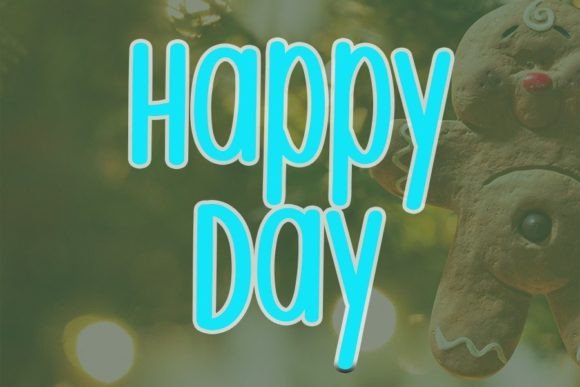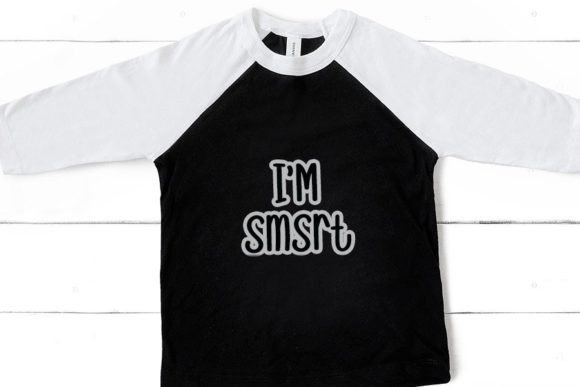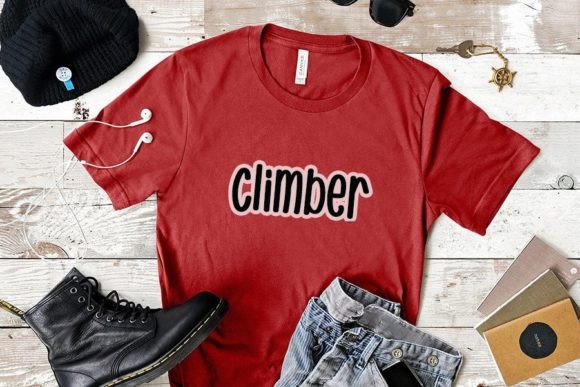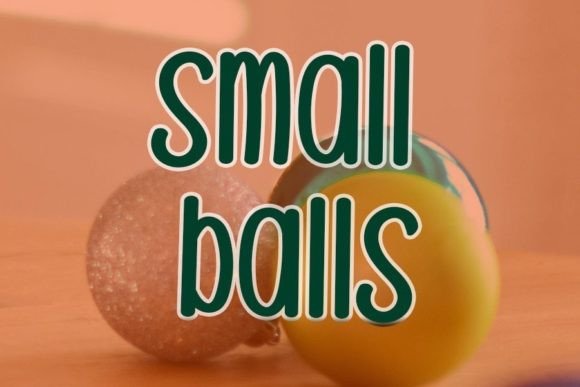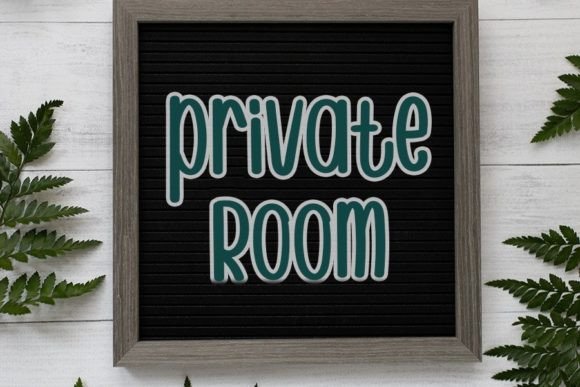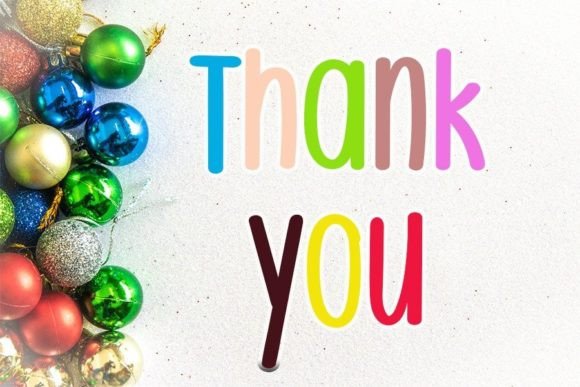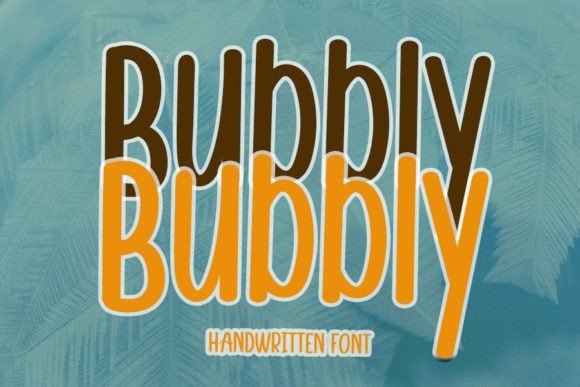
Bubbly Font: Add a Playful Touch to Your Designs
Are you looking for a font that can add a playful and fun touch to your designs? Look no further than Bubbly Font! This delightful handwritten font is perfect for creating wedding invitations, cards, and other designs that require a friendly and personalized feel.
What is Bubbly Font?
Bubbly Font is a carefully crafted handwritten font that exudes a sense of joy and playfulness. Its dainty and delicate strokes make it an ideal choice for designers who want to add a touch of whimsy to their work. Whether you’re creating wedding invitations, greeting cards, or social media graphics, Bubbly Font is sure to make your designs stand out.
Characteristics of Bubbly Font
So, what makes Bubbly Font so special? Here are some of its key characteristics:
• Playful and fun: Bubbly Font is designed to bring a smile to your face. Its playful and fun strokes make it perfect for designs that require a lighthearted touch.
• Dainty and joyful: The font’s dainty strokes and joyful vibe make it an excellent choice for wedding invitations, baby shower cards, and other celebrations.
• Handwritten: Bubbly Font is a handwritten font, which gives it a personal and unique touch.
• Versatile: This font can be used for a wide range of designs, from digital graphics to print materials.
Use Cases for Bubbly Font
So, how can you use Bubbly Font in your designs? Here are some ideas to get you started:
• Wedding Invitations: Bubbly Font is perfect for creating beautiful and playful wedding invitations that set the tone for a joyful celebration.
• Greeting Cards: Use Bubbly Font to create personalized greeting cards for birthdays, holidays, and other special occasions.
• Social Media Graphics: Add a playful touch to your social media graphics, such as Facebook posts, Instagram stories, and Twitter headers.
• DIY Crafts: Bubbly Font is also perfect for crafters who love to create handmade cards, gift tags, and other paper crafts.
Tips for Using Bubbly Font
Here are some tips for using Bubbly Font in your designs:
• Pair with other fonts: Experiment with pairing Bubbly Font with other fonts to create a unique and interesting contrast.
• Use pastel colors: Bubbly Font looks beautiful with pastel colors, which complement its playful and joyful vibe.
• Add illustrations: Consider adding illustrations or graphics to your design to enhance the playful feel of Bubbly Font.
• Experiment with sizes: Don’t be afraid to experiment with different font sizes to create visual interest and hierarchy in your design.
In conclusion, Bubbly Font is a delightful handwritten font that can add a playful and fun touch to your designs. Its dainty and joyful strokes make it perfect for wedding invitations, cards, and other designs that require a friendly and personalized feel. With its versatility and ease of use, Bubbly Font is sure to become a favorite among designers and crafters alike.